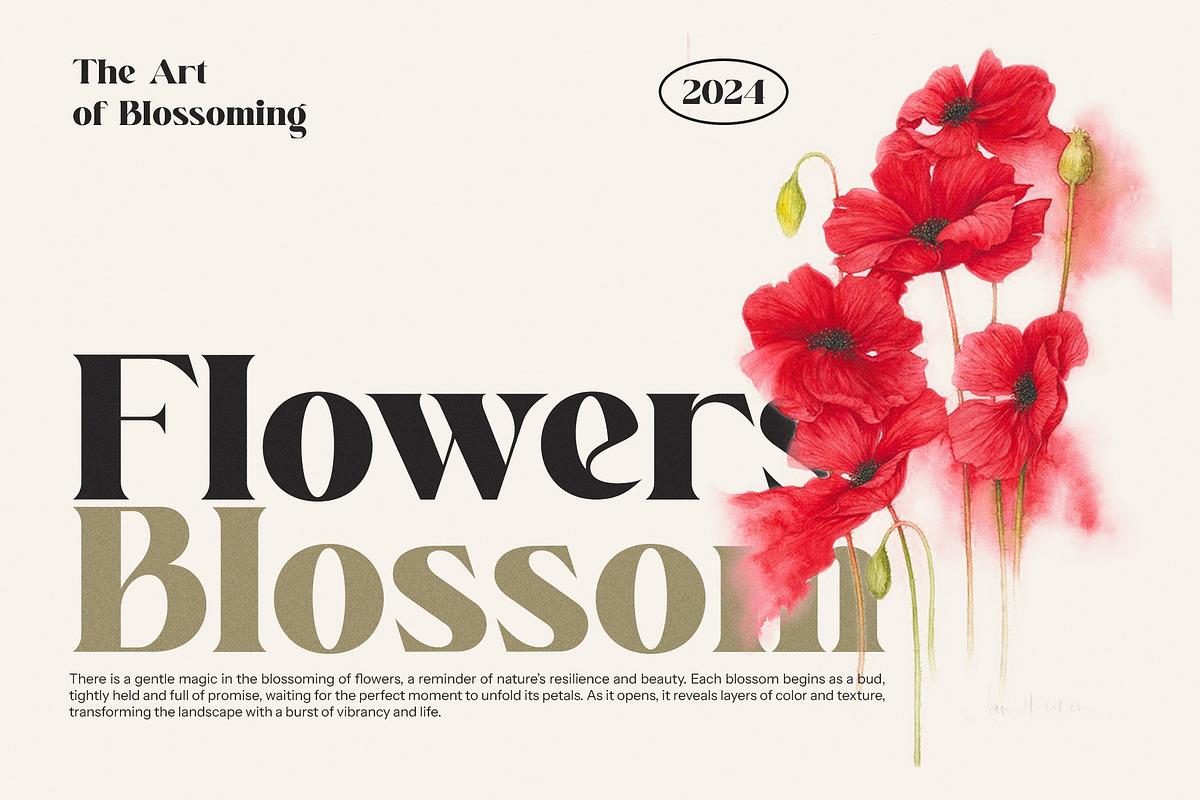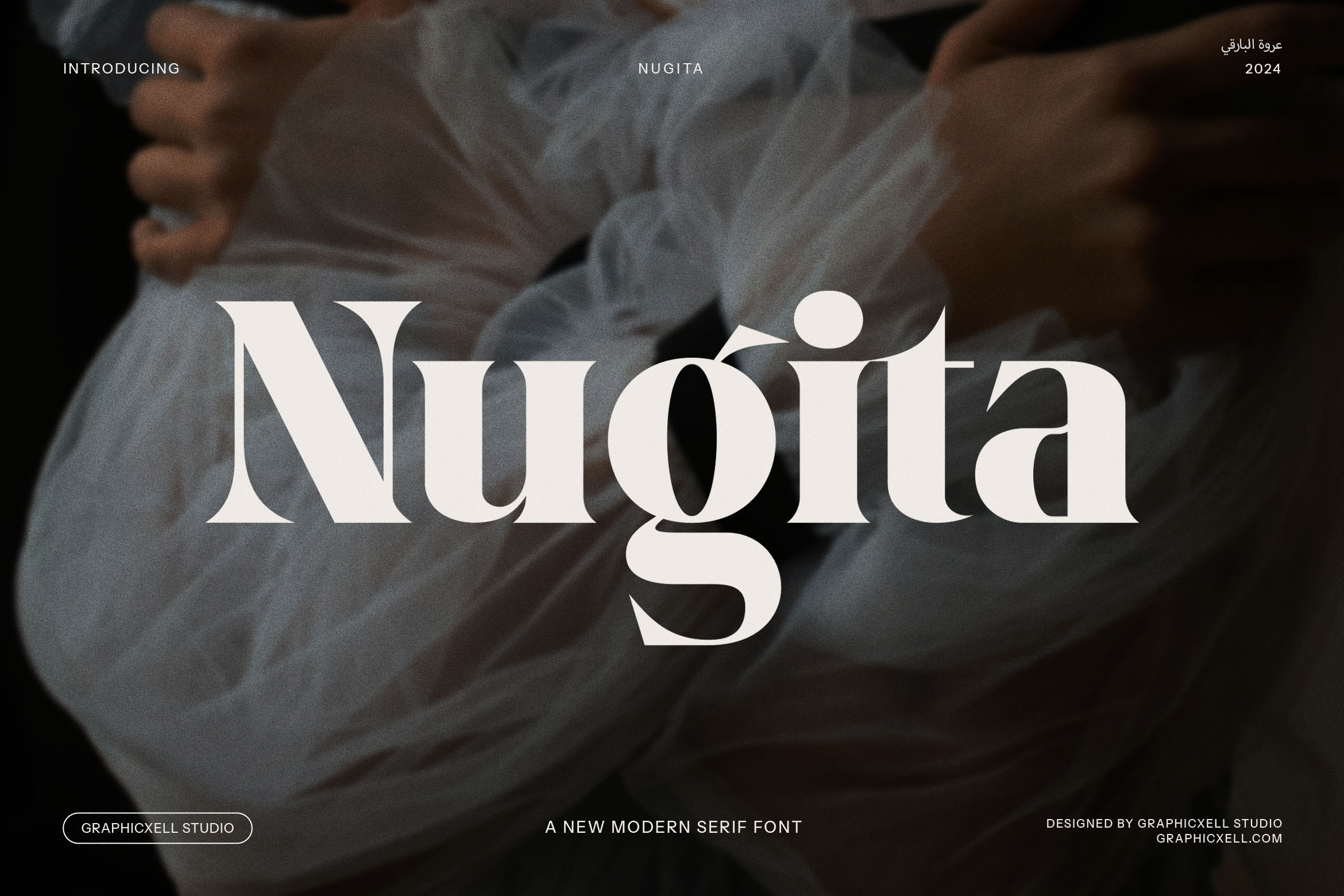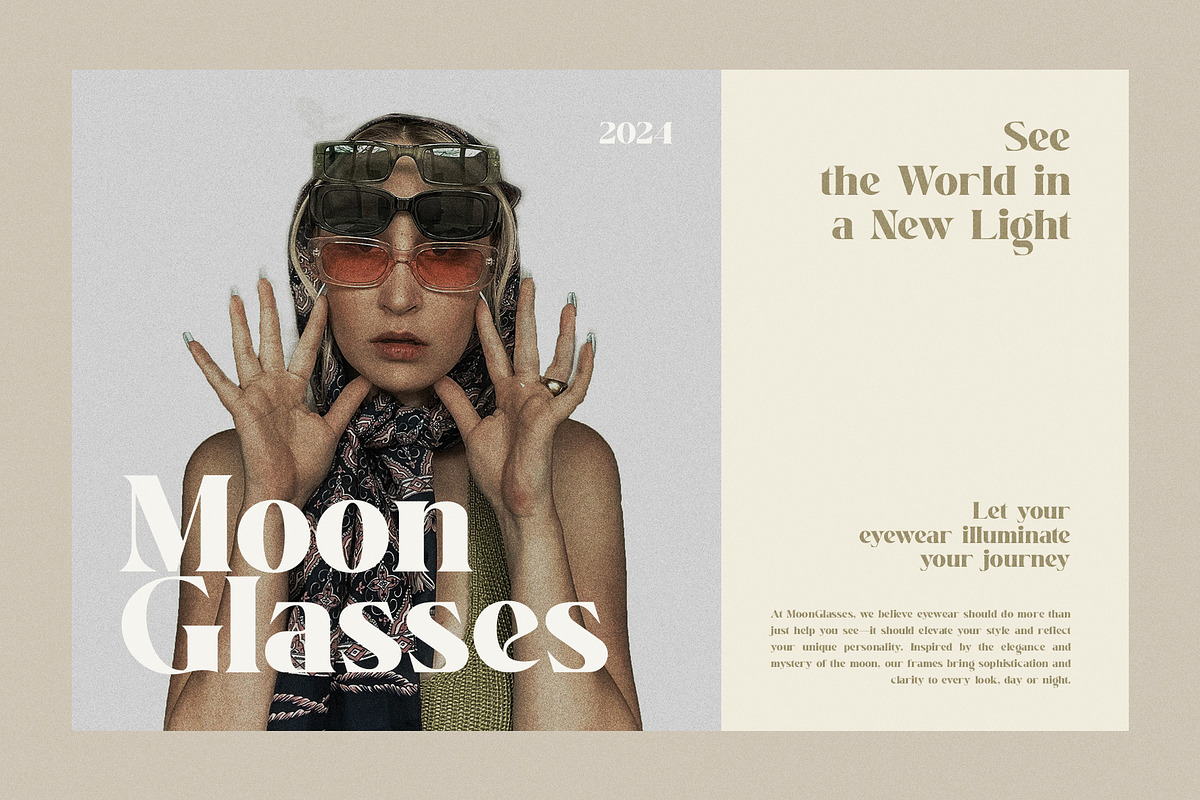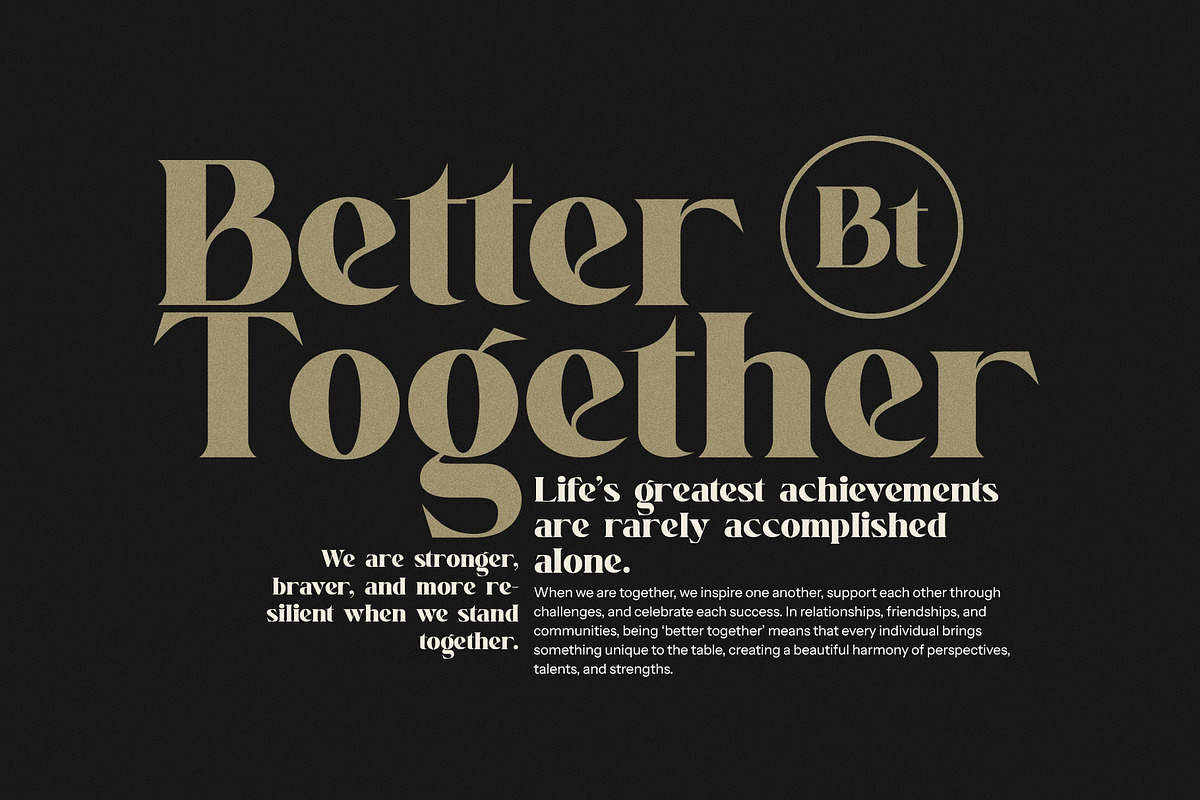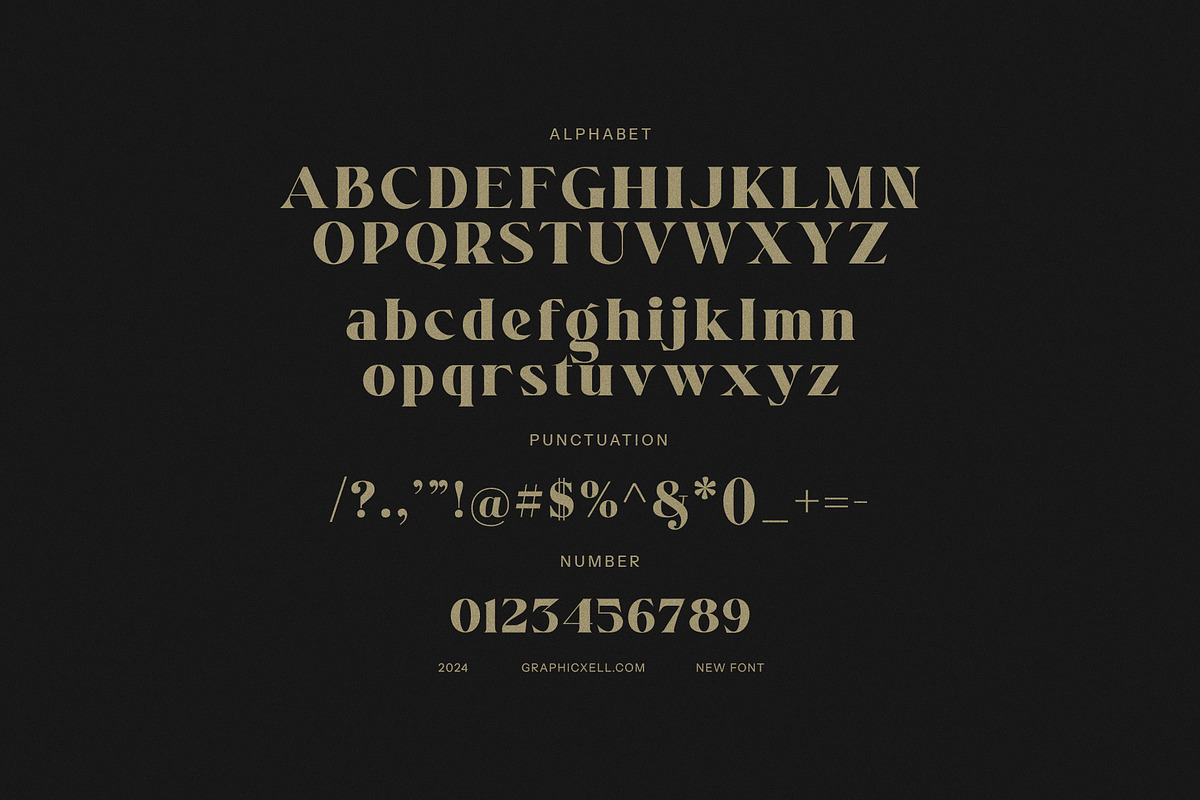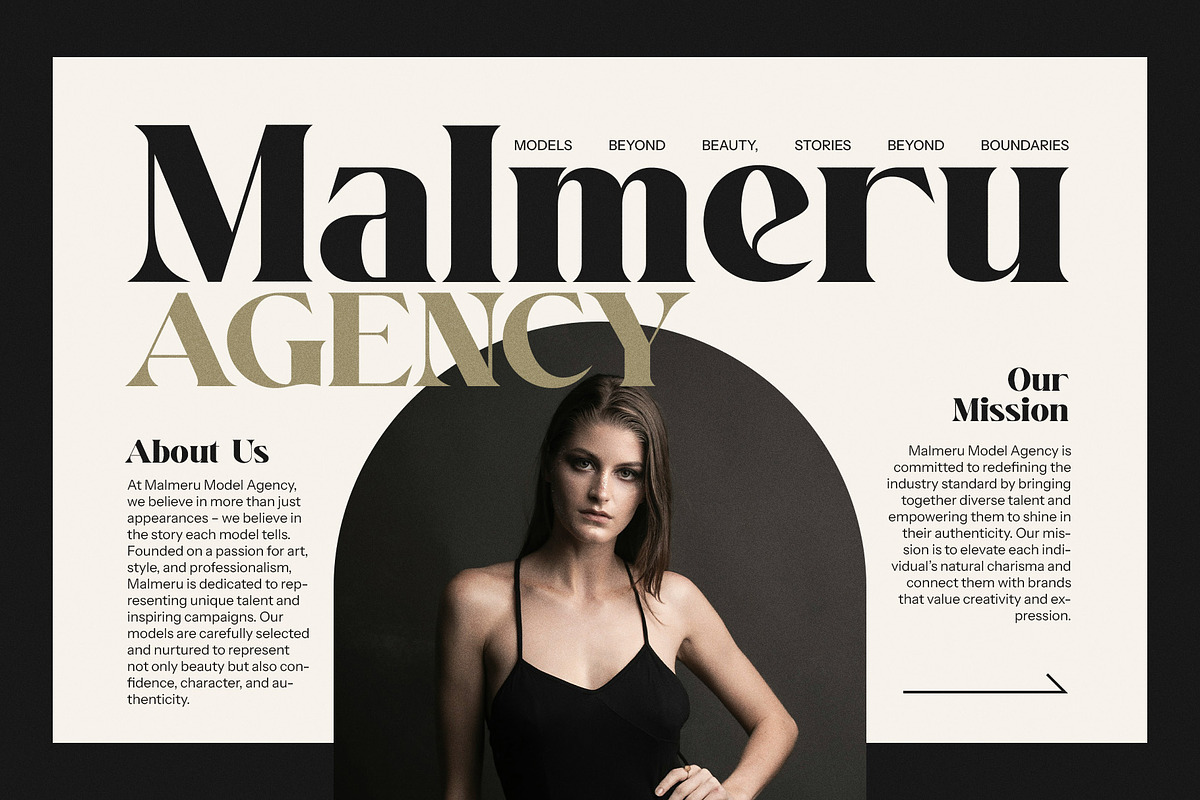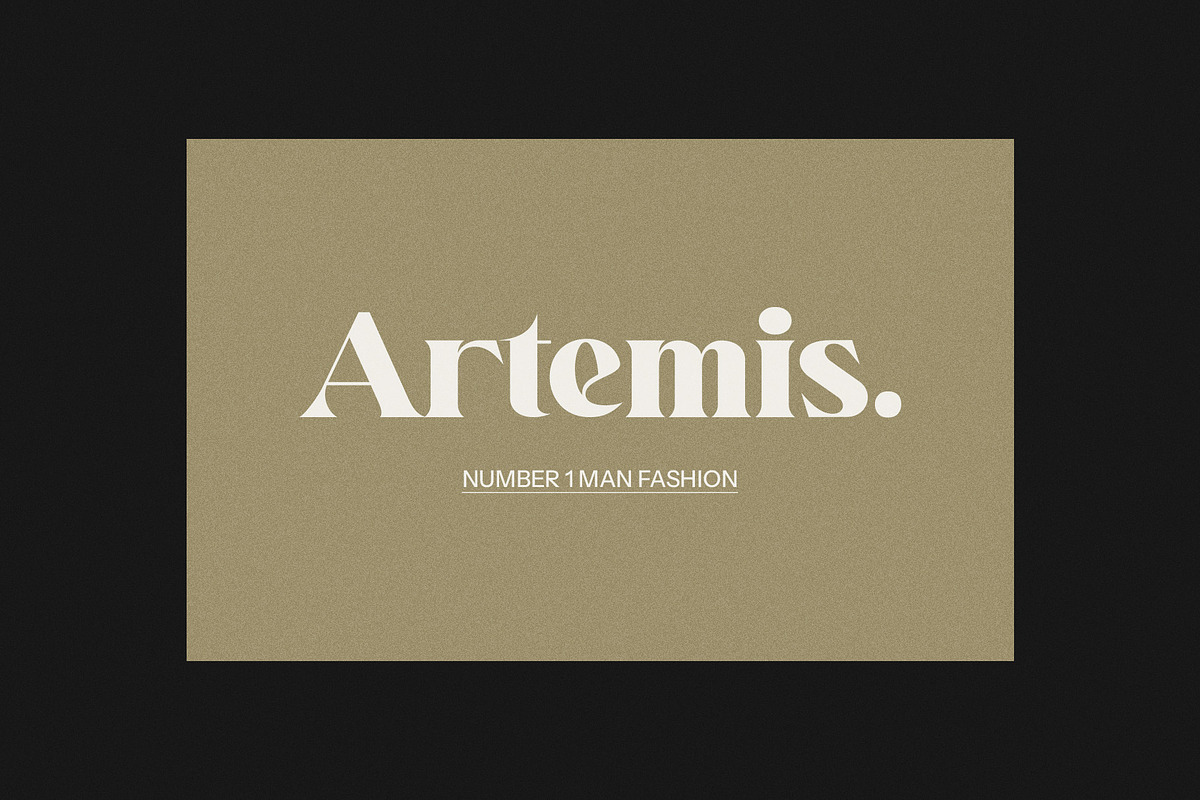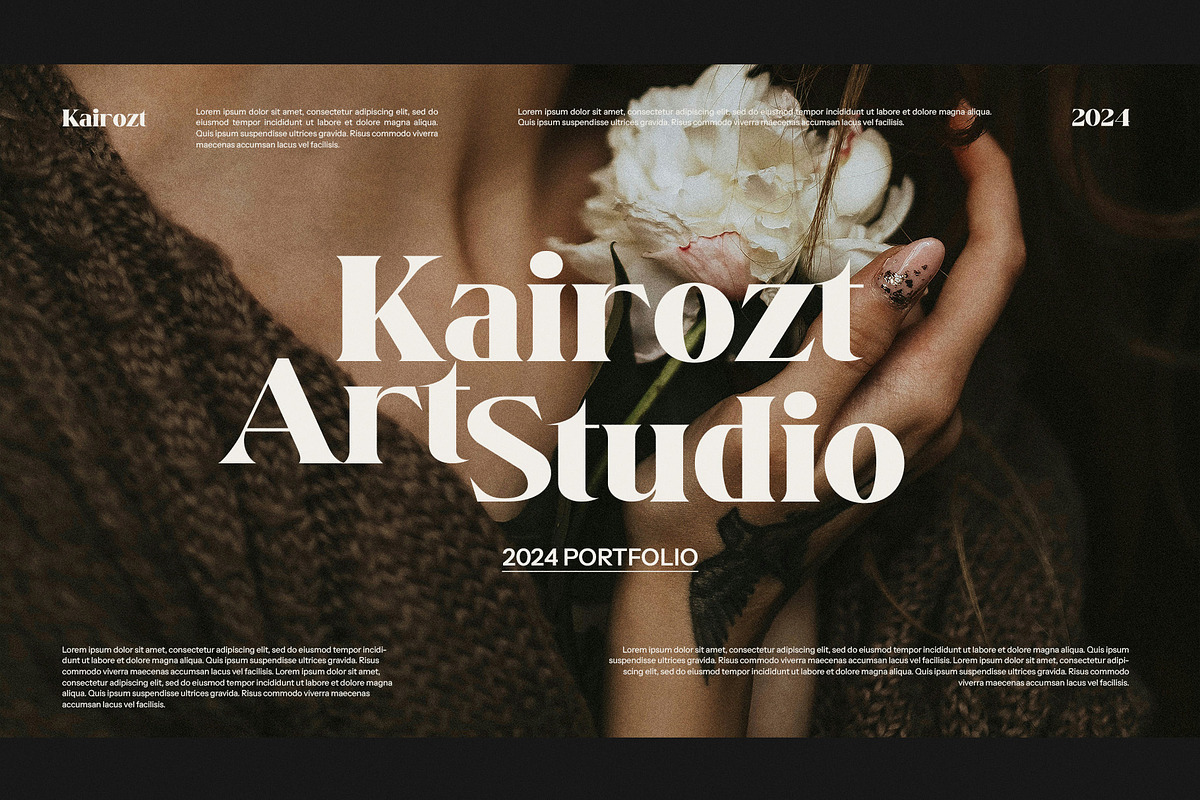
Nugita Elegant Serif Font
Nugita Elegant Serif Font is a stunning modern typeface that combines sophistication with a bold, clean design. This high-quality serif font features thick, sharp lines that give it a strong and polished appearance, making it perfect for a wide range of design projects. Whether you're working on logos, branding, websites, magazines, or product advertisements, Nugita Elegant Serif Font adds a touch of elegance and professionalism to your work.
The distinctive style of Nugita Elegant Serif makes it an excellent choice for luxury brands, fashion boutiques, high-end products, and editorial layouts. Its versatility allows it to be used in both digital and print formats, making it ideal for websites, business cards, brochures, social media posts, and more. This font ensures that your design stands out, capturing attention with its refined aesthetic while maintaining readability and clarity.
With its balanced proportions and unique flair, Nugita Elegant Serif Font brings a sense of timeless beauty to any project. Whether you're designing for a food brand, a boutique, or an upscale magazine, this font will elevate the visual appeal of your brand identity and marketing materials. Enhance your creative designs with Nugita Elegant Serif Font, and make a lasting impression with a modern and stylish typeface that resonates with your audience.
This font is perfect for designers looking to add a touch of class and strength to their projects. It’s a must-have for anyone seeking a contemporary serif font that balances style and legibility.